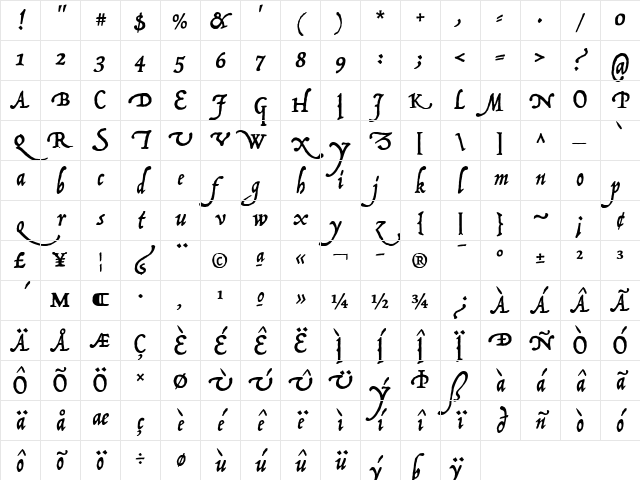
P22 Operina Corsivo Corsivo
Foundry: James Grieshaber
Designer: James Grieshaber
Design Context for P22 Operina Corsivo
P22 Operina Corsivo is a composed and adaptable typeface that performs quietly and consistently across a wide range of design contexts.